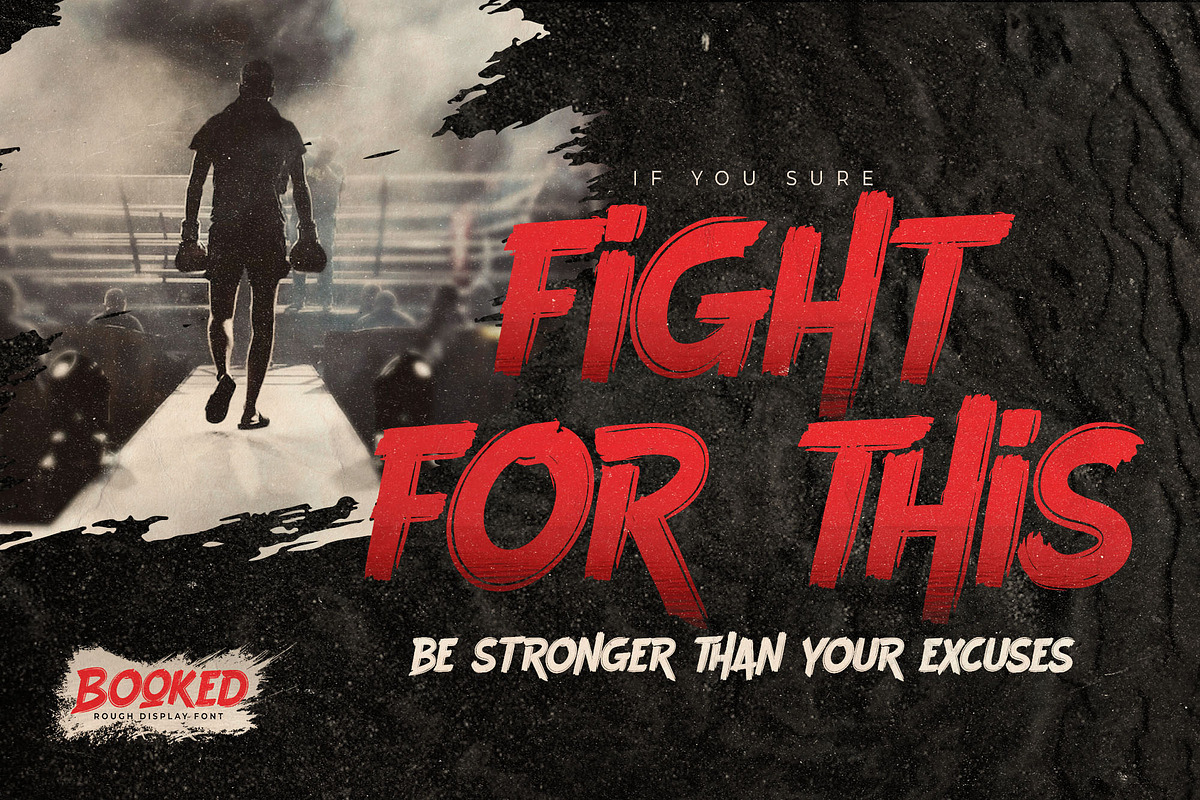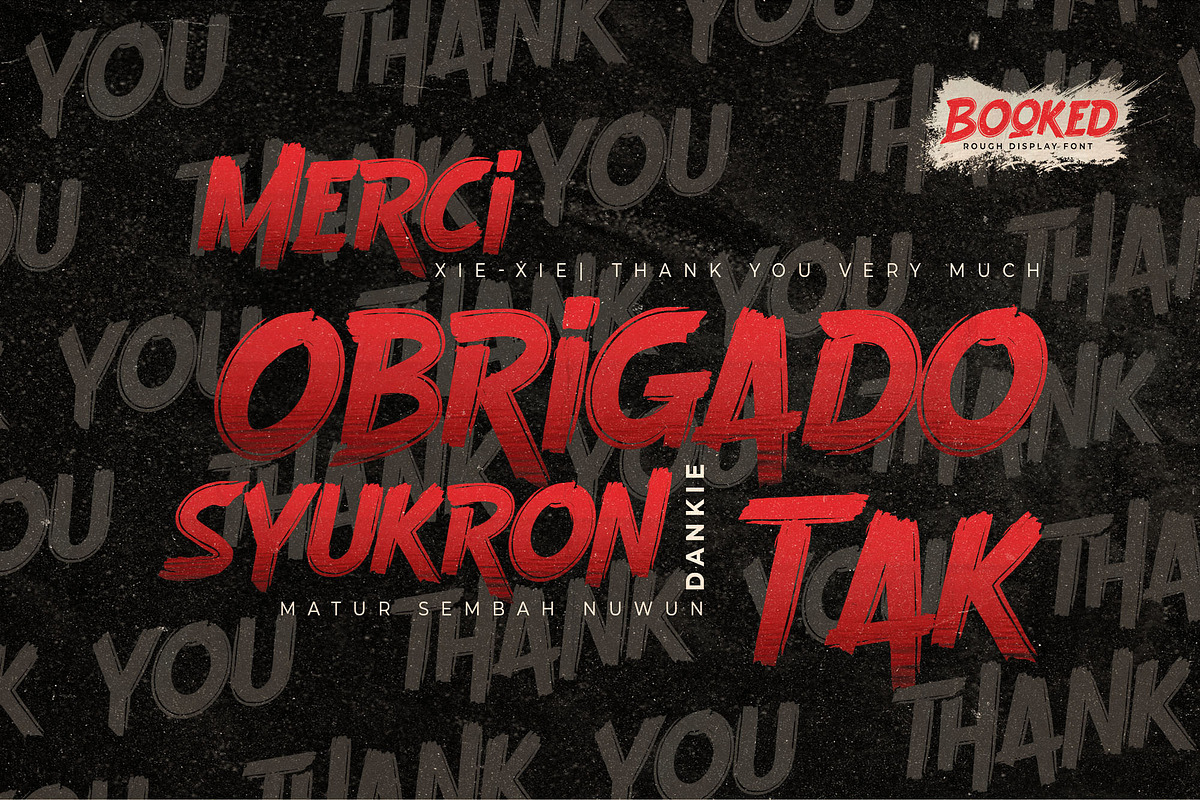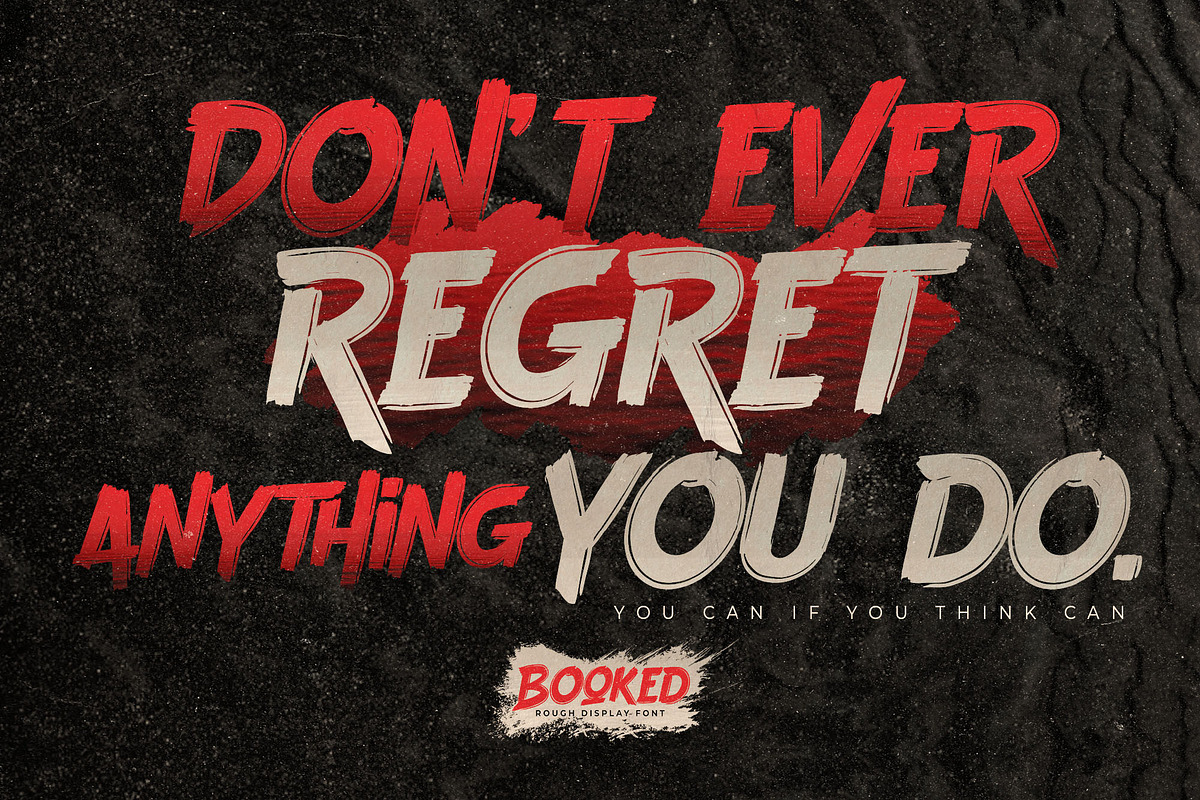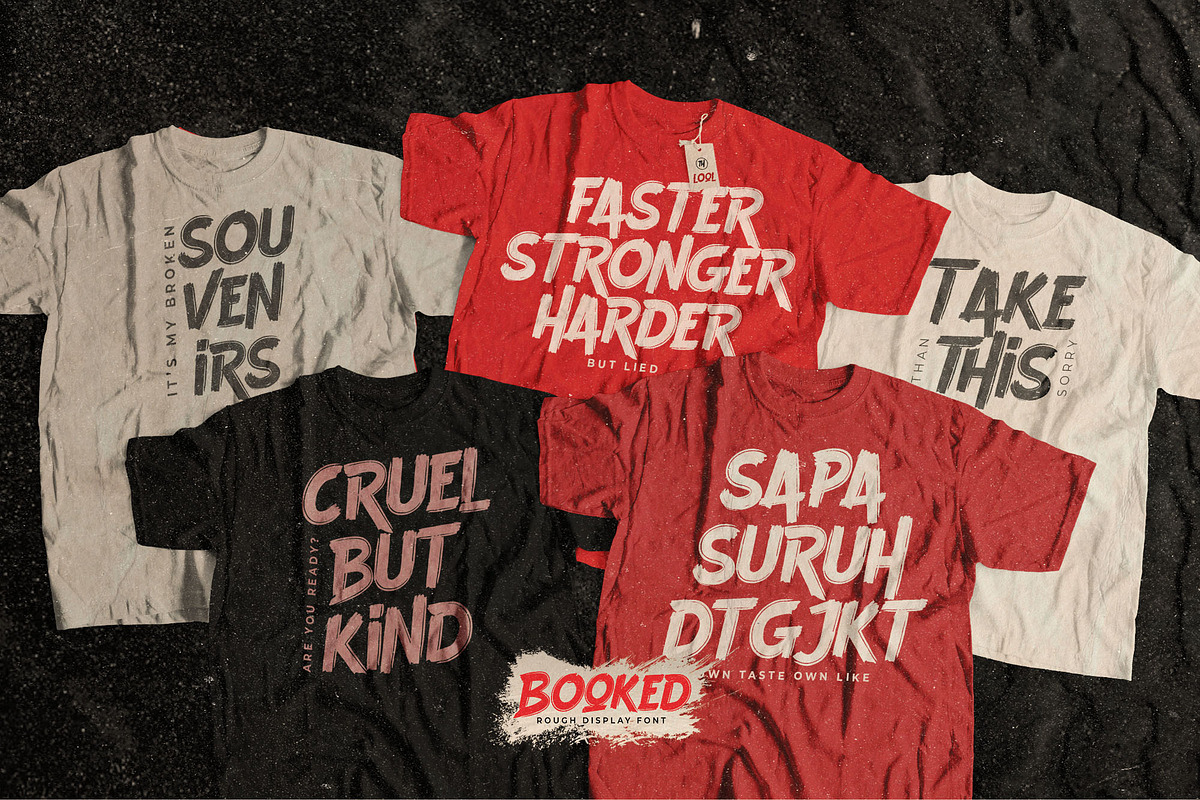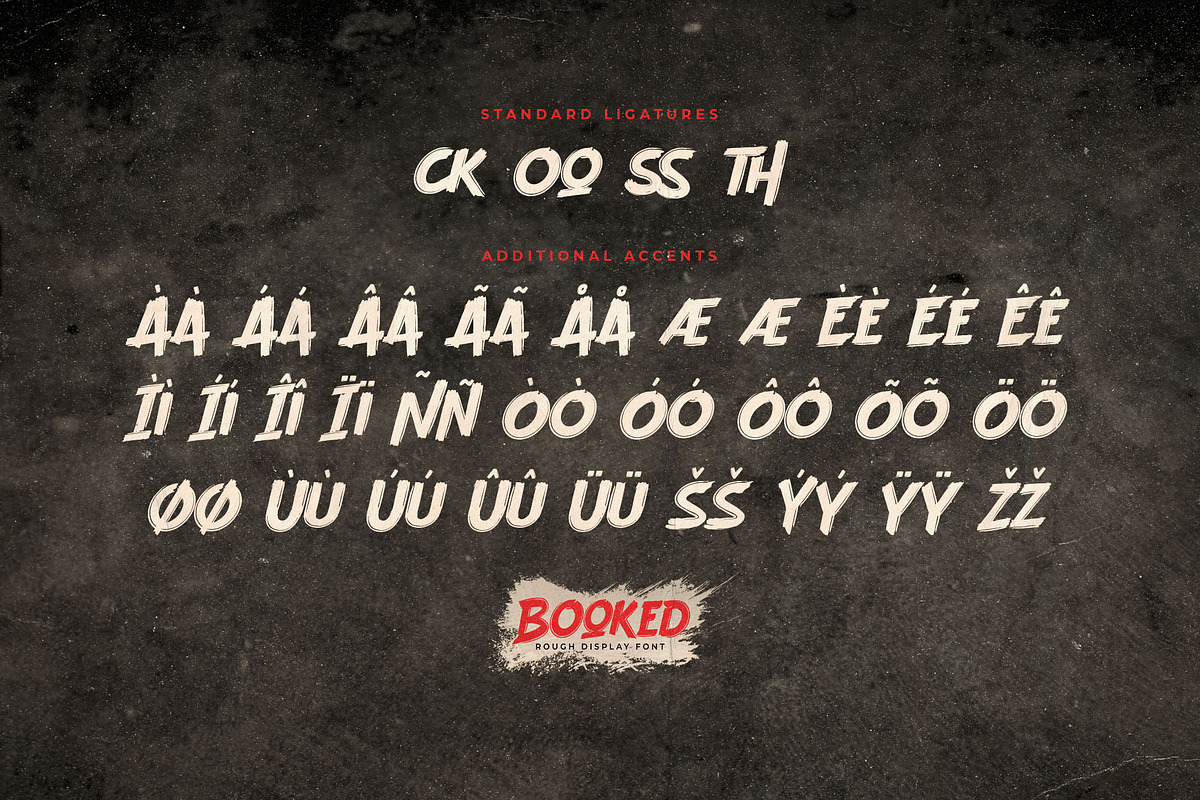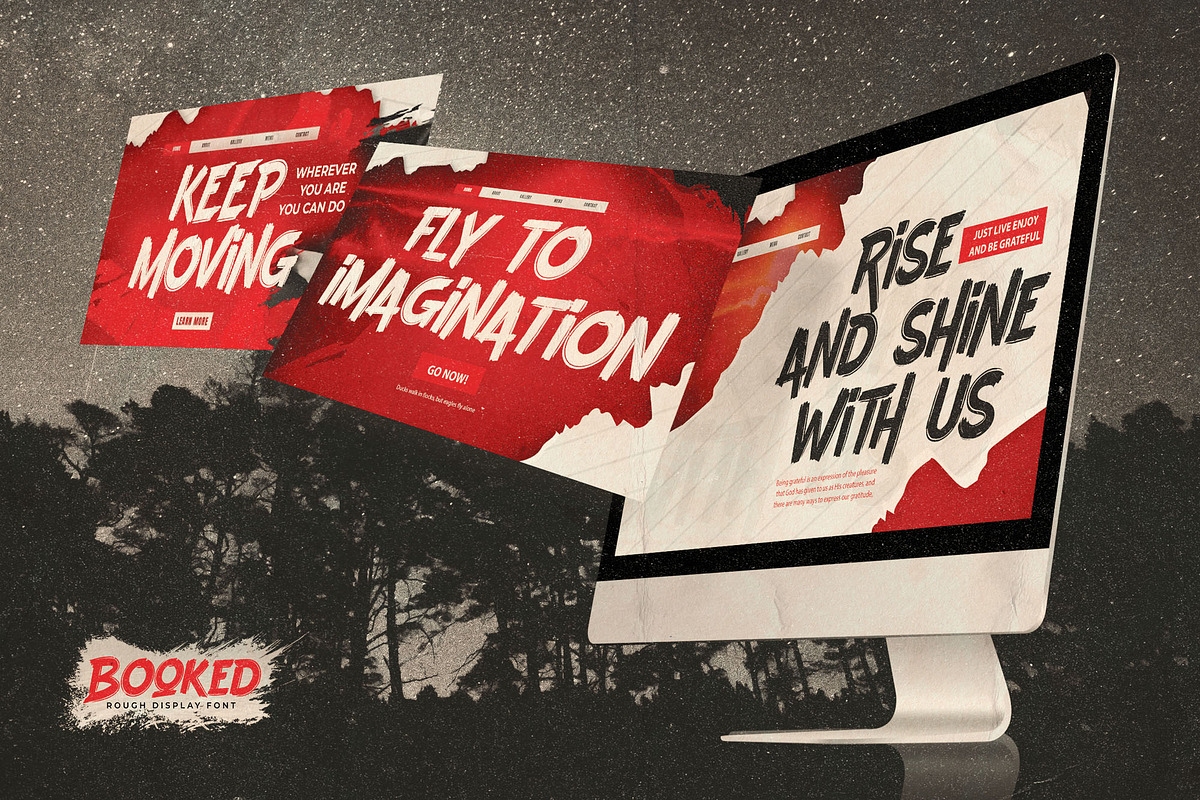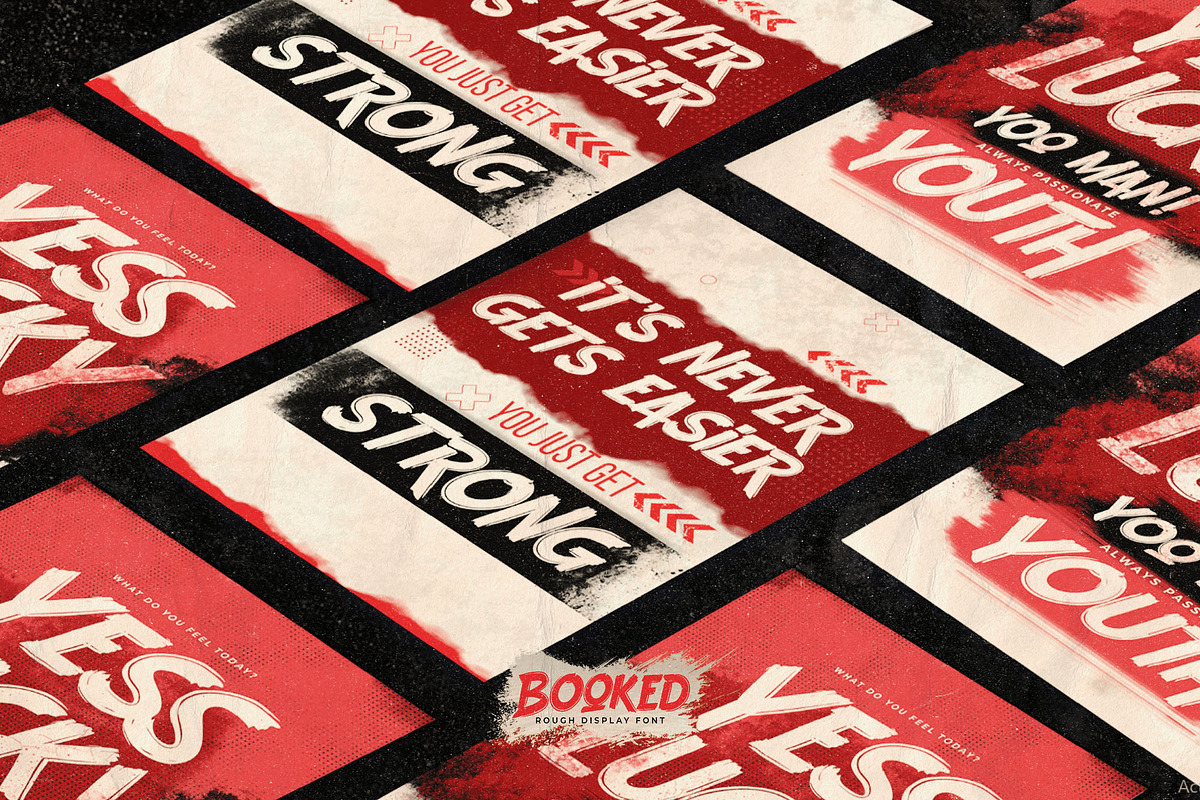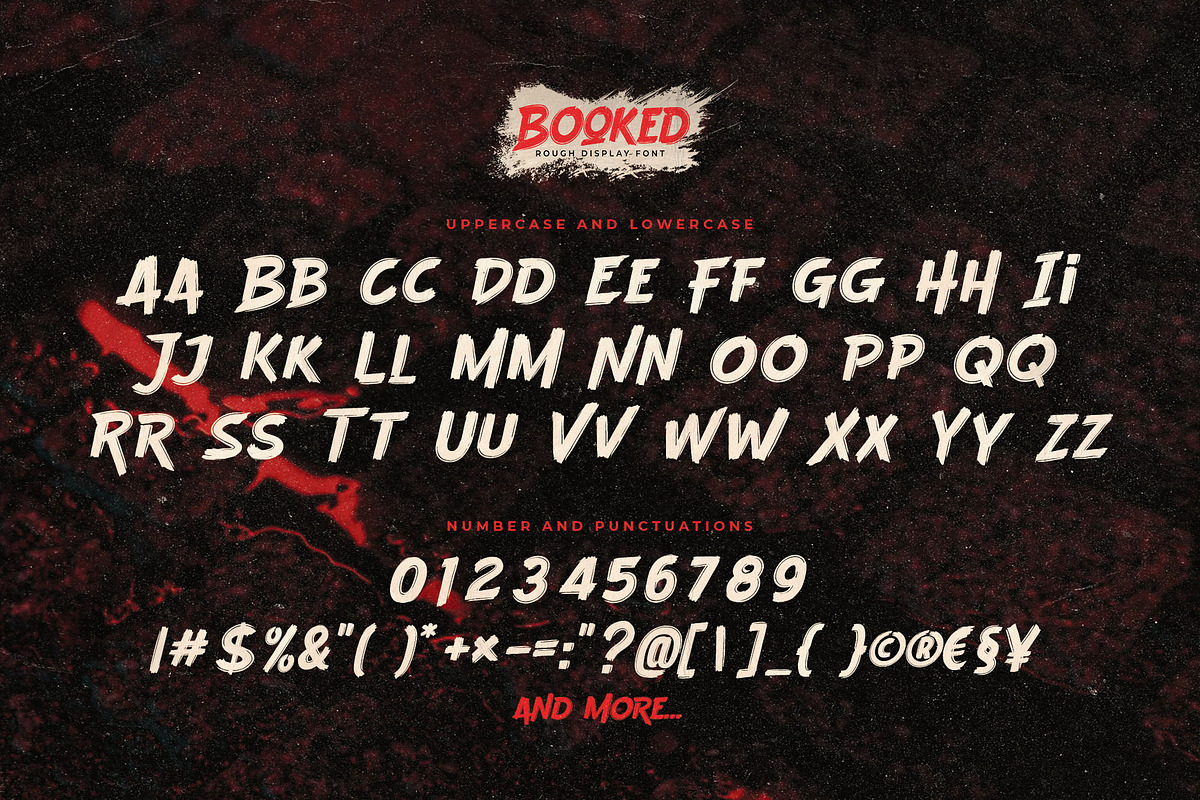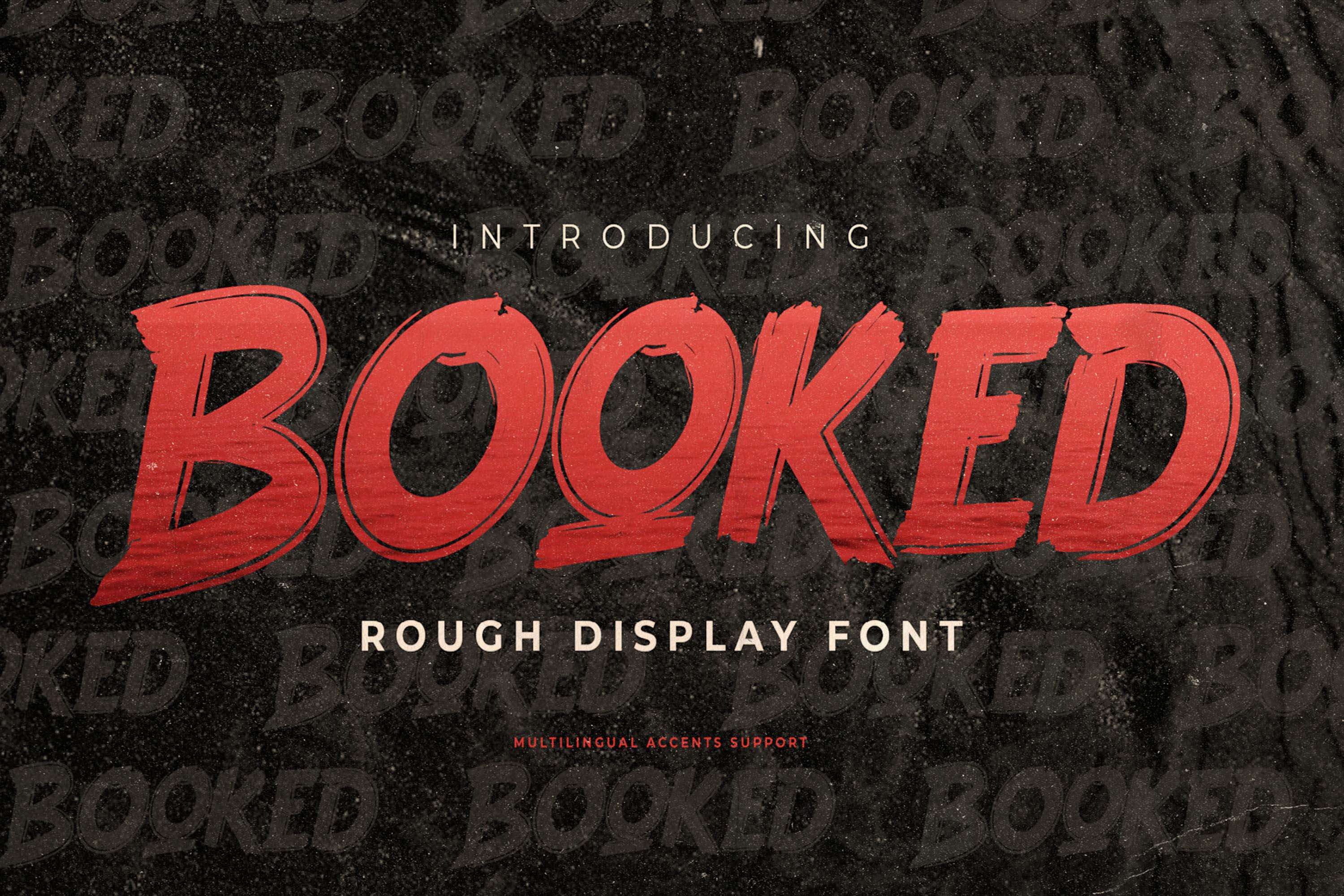
Booked - Rough Display Font
Hello Everyone, introduce our new product Font Booked This Is Rough Display Font.This is a Textured Natural Style and classy style with a clear style and dramatic movement. This font Booked is great for your next creative project such as logos, printed quotes, invitations, cards, product packaging, headers, Logotype, Letterhead, Poster, Design this font is great for your creative projects such as watermark on photography, and perfect for logos & branding, invitation,advertisements,product designs, stationery, wedding designs,label ,product packaging, special events or anything that need handwritting taste. That is has charming, authentic and relaxed characteristic more natural look to your text. You can activate 4 Ligatures OpenType panel.
- Ligatures glyphs